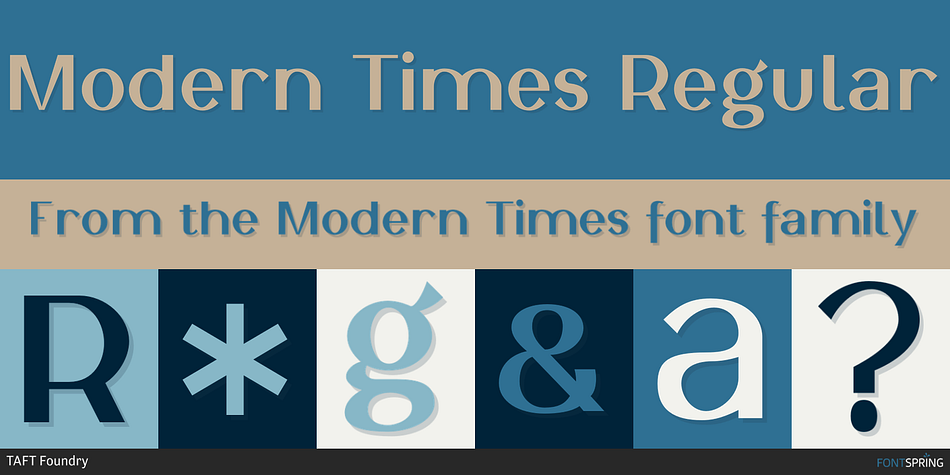
Modern Times Regular
Modern Times is an art deco and sans serif font family. This typeface has five styles and was published by TAFT Foundry.
The Modern Times is the most popular font developed by me. It was sold more than any other of font that I created. This version supported Western Europe, Central/Eastern Europe, Baltic, Turkish, Romanian, Cyrillic, Greek, Georgian languages
Modern Times font. 996 glyph, 100+ Languages Set.
Multilingual support: Latin basic, Latin Extended, Cyrillic, Greek, Georgian, Central Europe, Turkish, Baltic, Romanian, Euro, West European diacritics